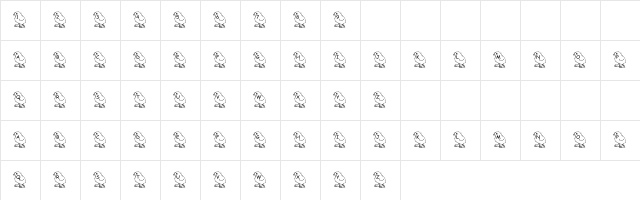
Top Valley Scene Regular
Design Context for Top Valley Scene Typeface
Top Valley Scene is a composed and adaptable typeface that performs quietly and consistently across a wide range of design contexts.